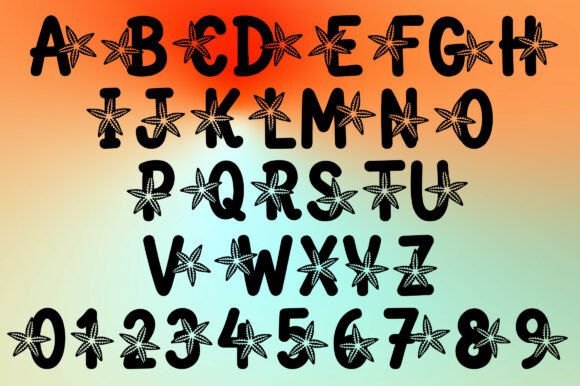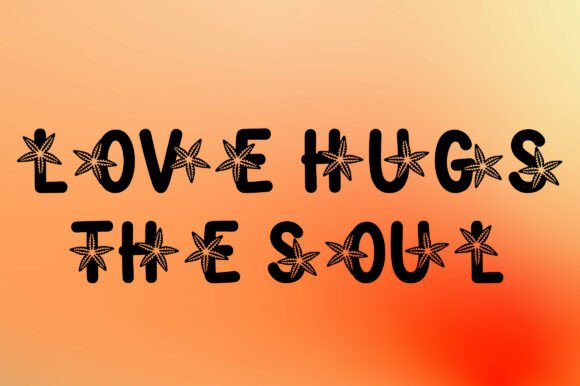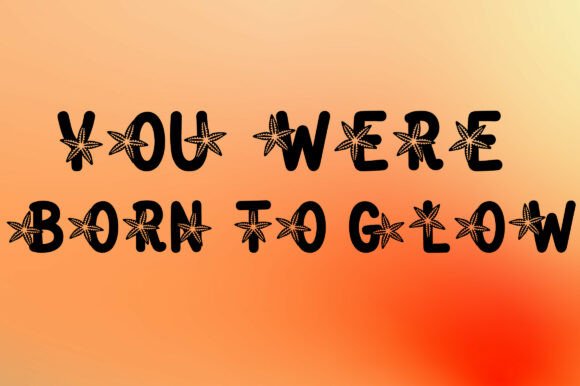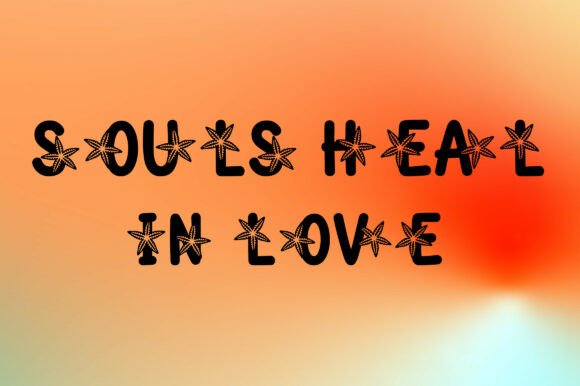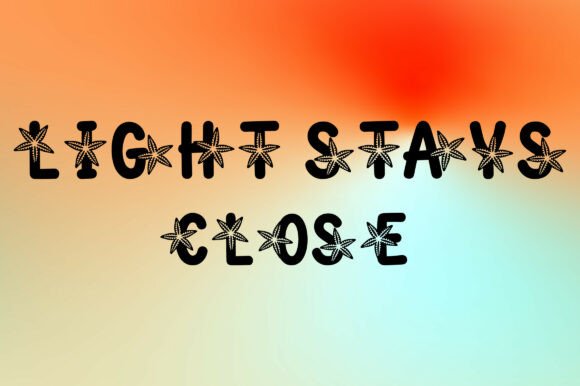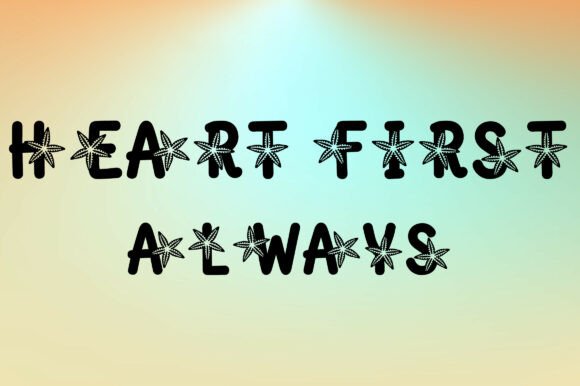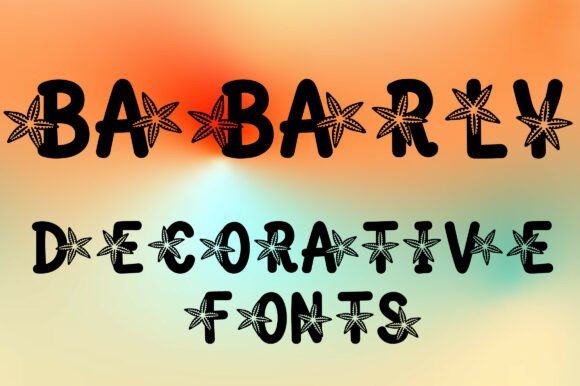
Babarly Font: A Coastal Decorative Font for Creative Projects
Are you looking for a unique and imaginative font to add a touch of coastal charm to your designs? Look no further than the Babarly Font, a decorative starfish and ocean-inspired font that’s perfect for a variety of creative projects. In this article, we’ll dive into the features and benefits of the Babarly Font and explore how it can elevate your designs.
What is Babarly Font?
Babarly Font is a decorative font that includes uppercase letters A-Z and numbers 0-9, inspired by the beauty of starfish and the sea. This versatile font is designed to bring a fun, coastal, and imaginative touch to your designs, making it ideal for a range of creative projects, from logos and branding to posters, packaging, and social media graphics.
Key Features of Babarly Font
- Uppercase letters A-Z and numbers 0-9: The Babarly Font includes a full set of uppercase letters and numbers, making it easy to create a wide range of designs.
- Starfish and ocean-inspired design: The font’s unique design is inspired by the beauty of starfish and the sea, adding a touch of coastal charm to your designs.
- Versatile and decorative: The Babarly Font is perfect for a variety of creative projects, from logos and branding to posters, packaging, and social media graphics.
Benefits of Using Babarly Font
So why choose the Babarly Font for your next design project? Here are just a few benefits of using this unique and imaginative font:
- Add a coastal touch to your designs: The Babarly Font is perfect for designers and crafters who want to add a touch of coastal charm to their designs.
- Stand out from the crowd: With its unique starfish and ocean-inspired design, the Babarly Font is sure to make your designs stand out from the crowd.
- Perfect for creative projects: The Babarly Font is ideal for a range of creative projects, from logos and branding to posters, packaging, and social media graphics.
How to Use Babarly Font in Your Designs
Using the Babarly Font in your designs is easy. Here are a few tips to get you started:
- Logos and branding: Use the Babarly Font to create a unique and memorable logo or brand identity.
- Posters and packaging: Add a touch of coastal charm to your posters and packaging with the Babarly Font.
- Social media graphics: Use the Babarly Font to create eye-catching social media graphics that stand out from the crowd.
- Beach-themed artwork: The Babarly Font is perfect for beach-themed artwork, from illustrations to paintings.
Tips and Tricks for Getting the Most Out of Babarly Font
Here are a few tips and tricks for getting the most out of the Babarly Font:
- Experiment with different colors: The Babarly Font looks great in a range of colors, from bright and bold to soft and pastel.
- Combine with other fonts: Try combining the Babarly Font with other fonts to create a unique and eye-catching design.
- Use in combination with images: The Babarly Font looks great in combination with images, from photographs to illustrations.
In conclusion, the Babarly Font is a unique and imaginative decorative font that’s perfect for designers and crafters who want to add a touch of coastal charm to their designs. With its starfish and ocean-inspired design, versatile and decorative style, and ease of use, the Babarly Font is ideal for a range of creative projects. So why not give it a try and see how it can elevate your designs?